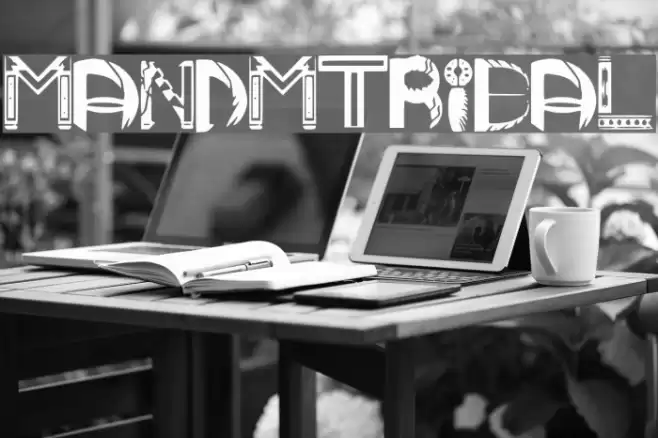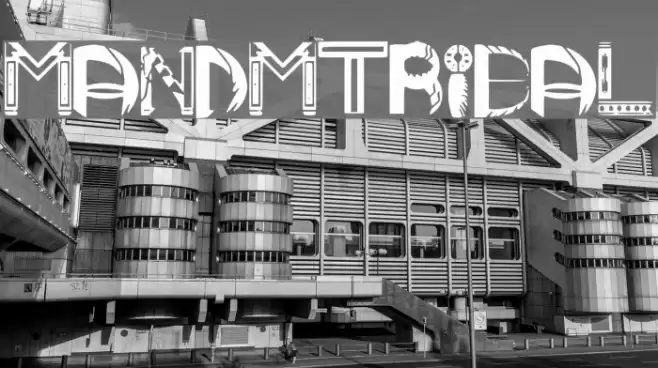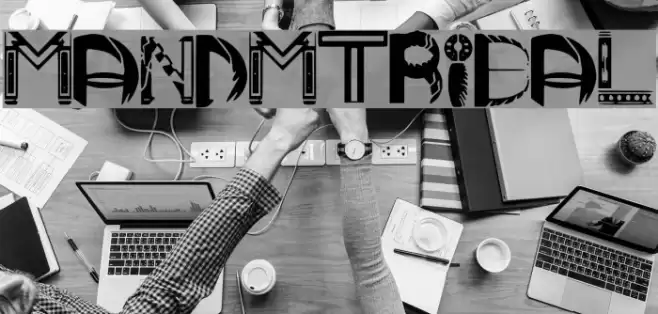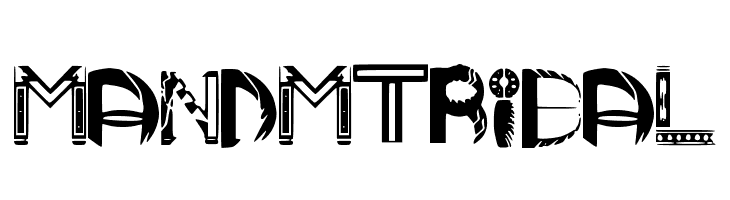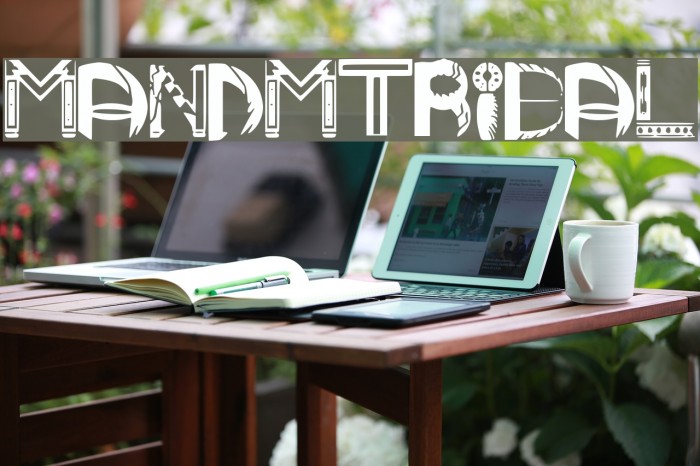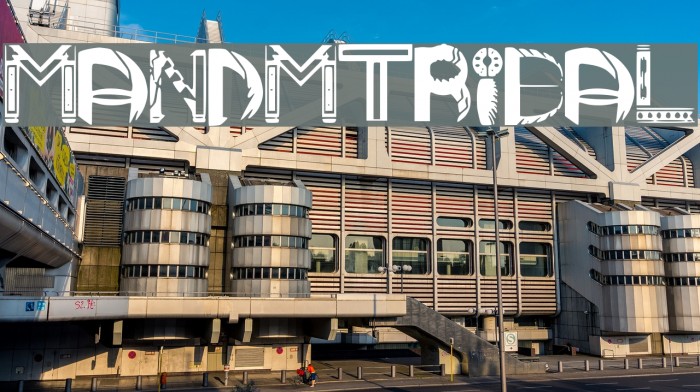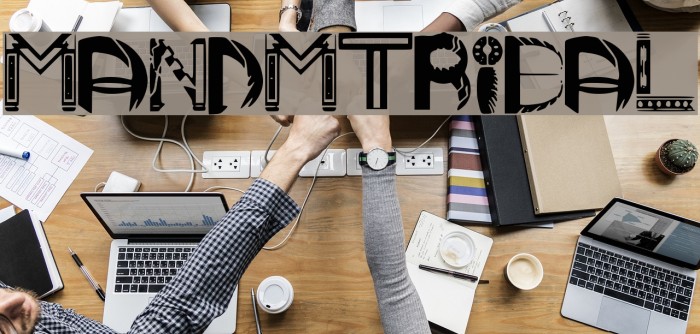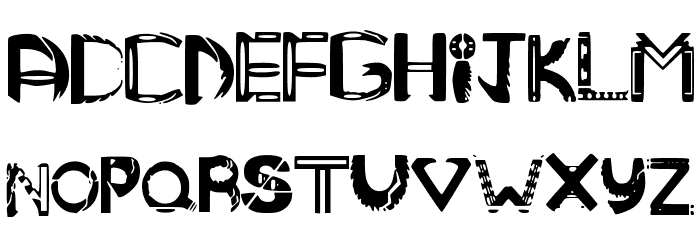
MANDMTRIBAL Font
MANDMTRIBAL Description
This font features a bold and decorative style with tribal-inspired elements. Each character is uniquely designed with intricate patterns and shapes, giving it a distinctive and artistic appearance. The uppercase letters are particularly striking, with bold lines and geometric forms that evoke a sense of movement and energy. The lowercase letters maintain the same decorative theme, ensuring consistency throughout the typeface. The font's unique style makes it stand out, making it ideal for projects that require a strong visual impact.
A bold, decorative font with tribal-inspired elements and intricate patterns from Decorative fonts.